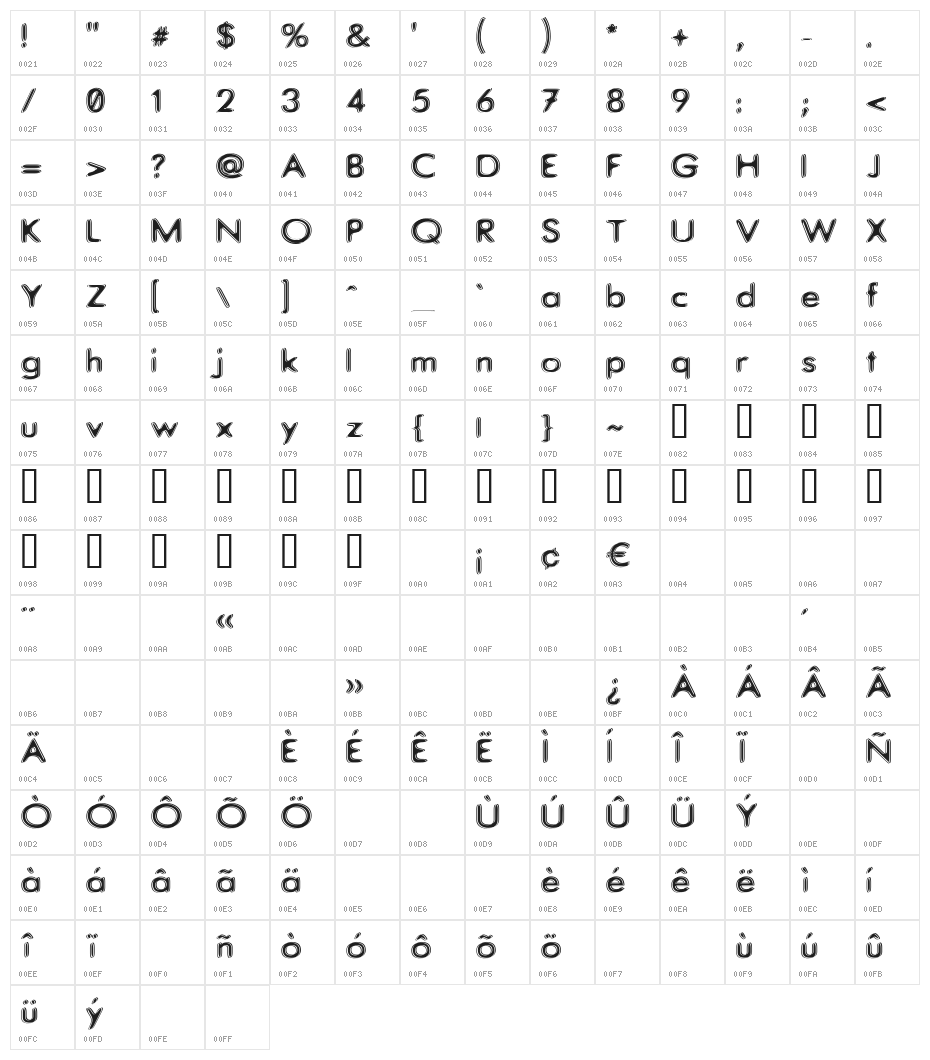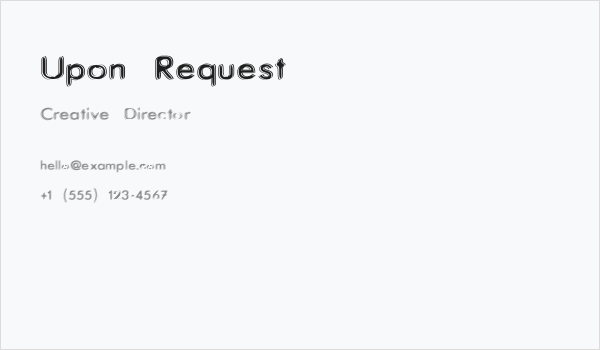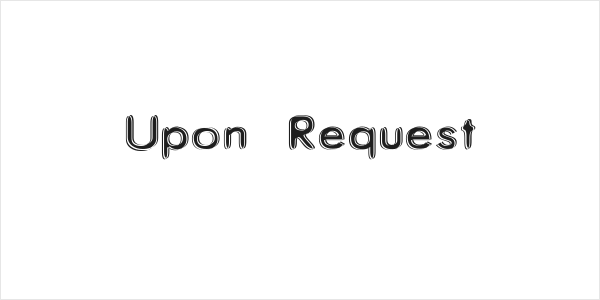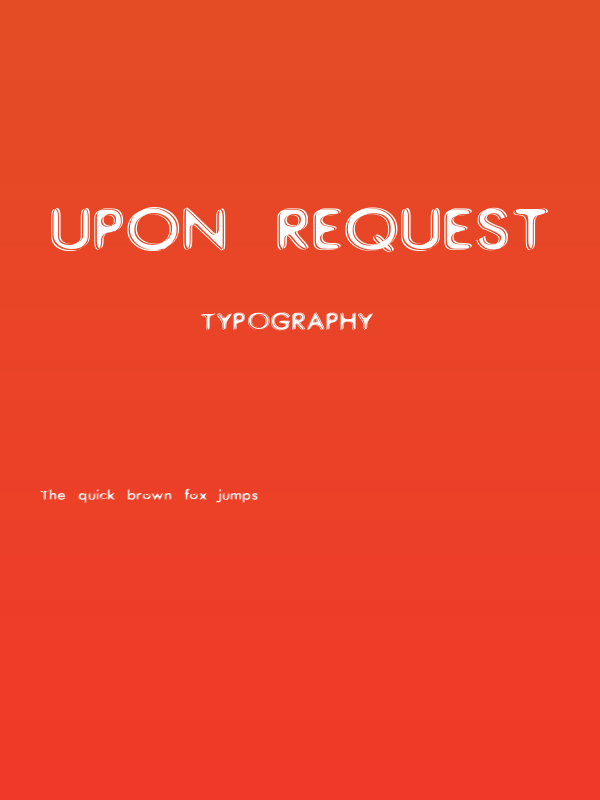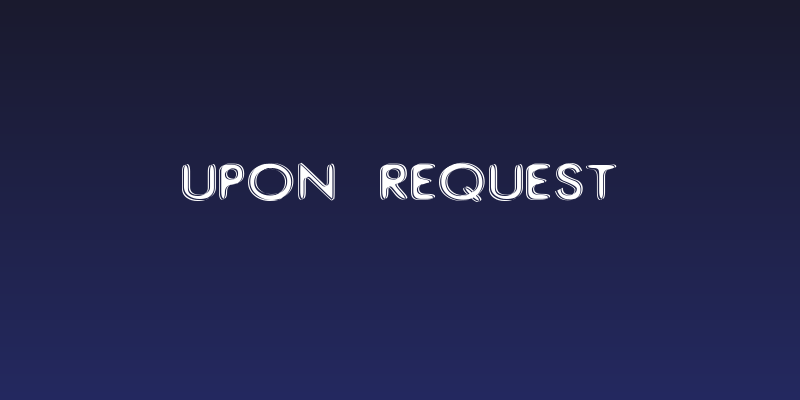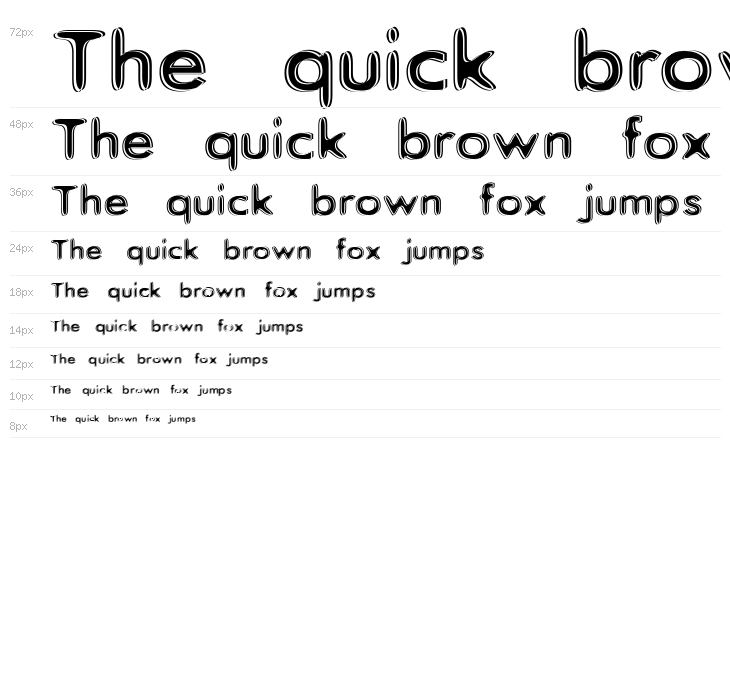
Upon Request Font
Upon Request Description
This font features a bold and playful design with a unique outline style that gives each character a three-dimensional appearance. The letters are rounded and slightly condensed, creating a sense of fun and whimsy. The uppercase and lowercase letters maintain a consistent style, with smooth curves and a uniform thickness that adds to the font's cohesive look. The numerals and special characters follow the same design principles, ensuring versatility across different uses. The overall aesthetic is modern and eye-catching, making it suitable for projects that require a touch of creativity and flair.
| Proposed Projects | Ideal for children's books, playful branding, posters, and creative advertising. |